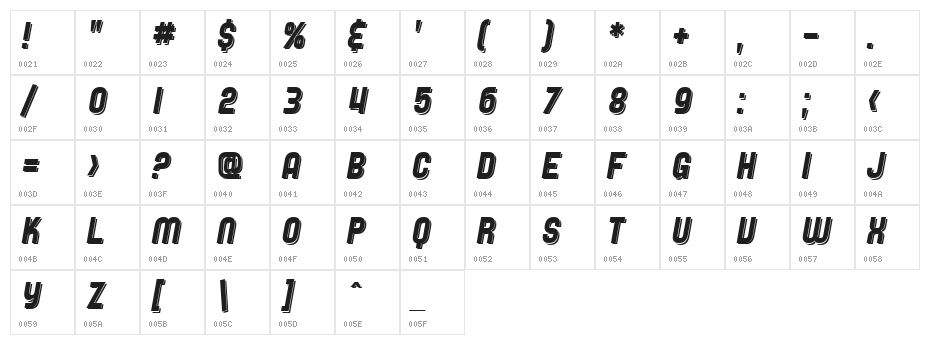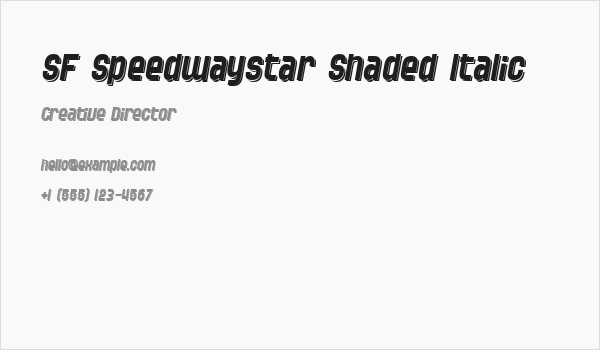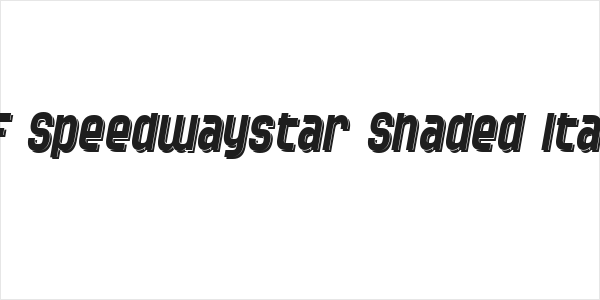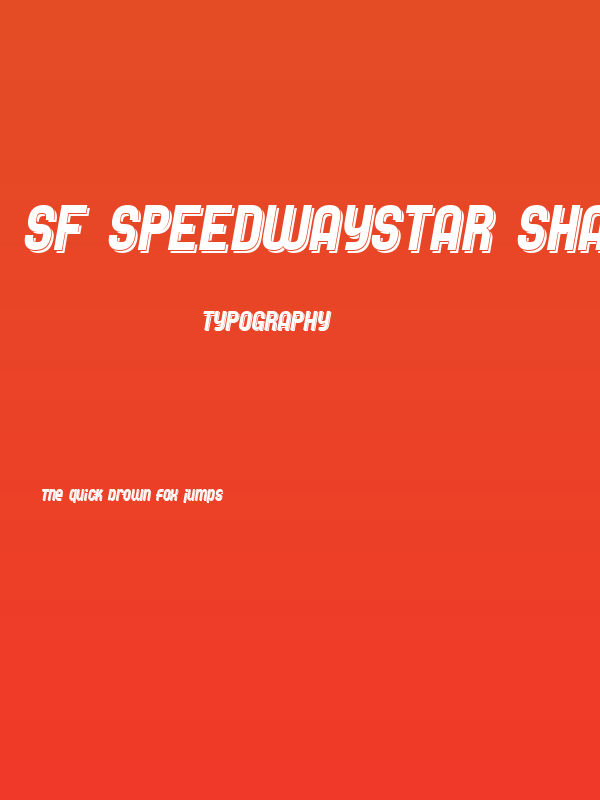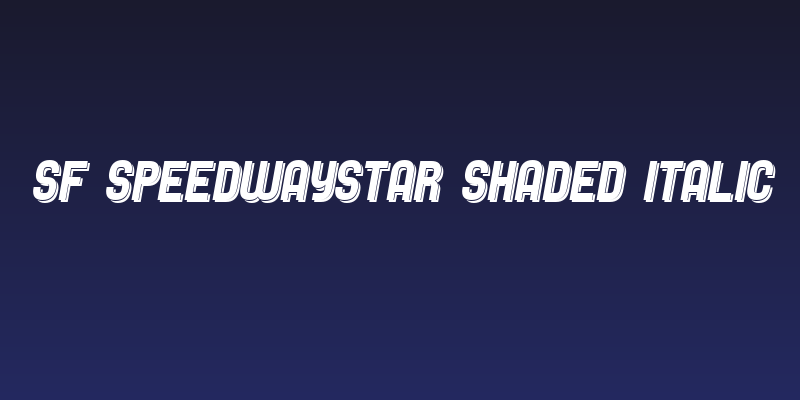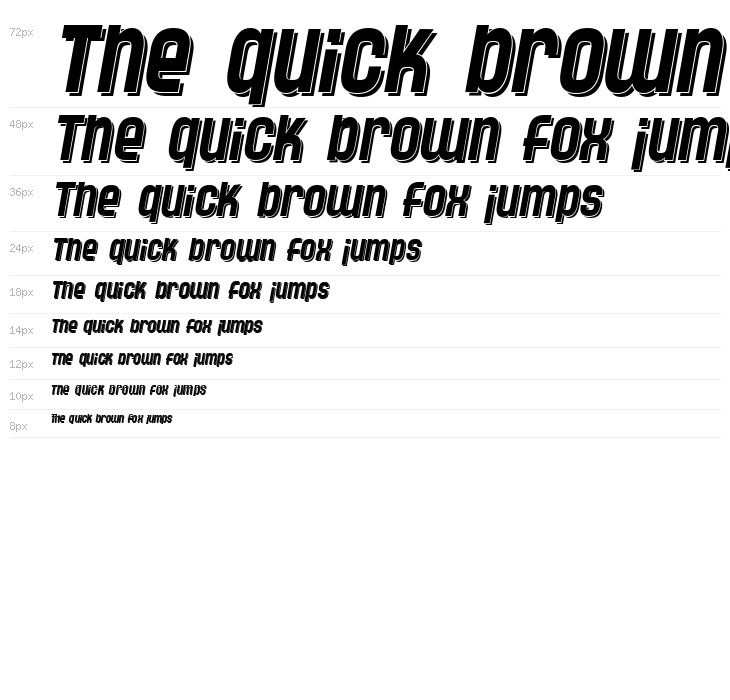
SF Speedwaystar Shaded Italic Font
SF Speedwaystar Shaded Italic Description
This font features a bold, dynamic style with a distinct shaded effect that gives it a three-dimensional appearance. The italicized slant adds a sense of motion and speed, making it ideal for projects that require a sense of energy and movement. The characters are wide and have a strong presence, with a consistent stroke width that enhances readability. The shading is applied to the right side of each character, creating a shadow effect that adds depth. This font is particularly suitable for headlines, posters, and any design that aims to capture attention with its bold and energetic style.
Proposed ProjectsIdeal for sports branding, automotive advertisements, dynamic posters, and eye-catching headlines.